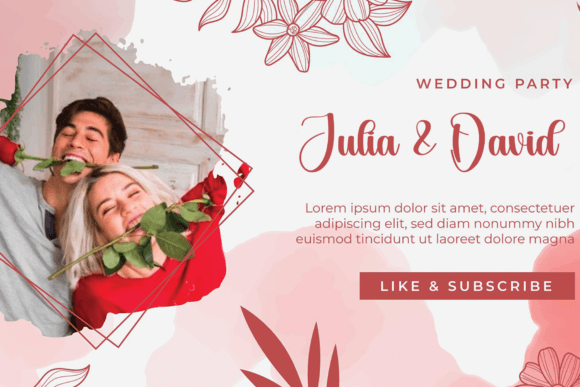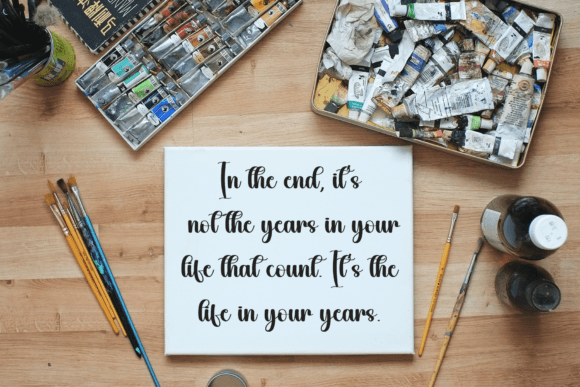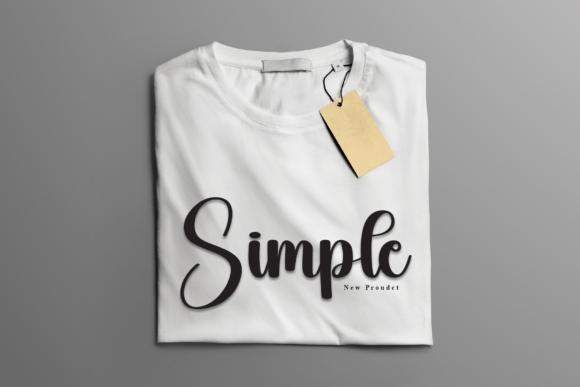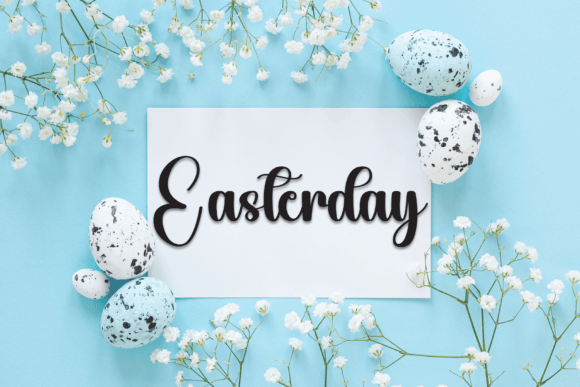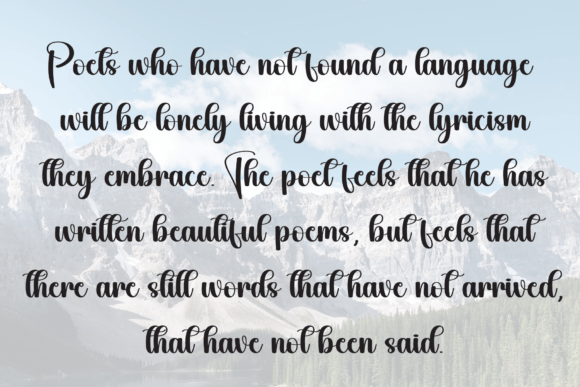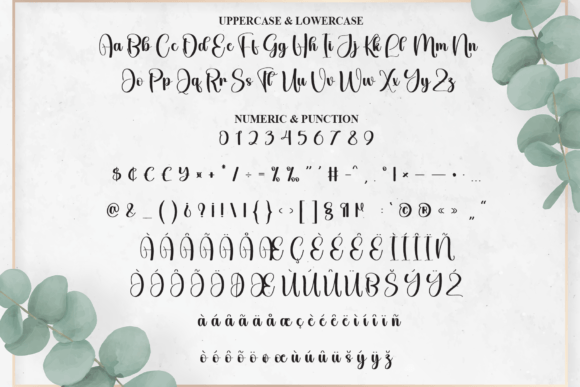
Introducing Handwritten: The Simple yet Elegant Font for Creative Designs
In the world of typography, a well-crafted font can make all the difference in elevating a design from ordinary to extraordinary. For designers and crafters looking to add a touch of sophistication and warmth to their projects, look no further than Handwritten, a beautiful and elegant handmade font. With its smooth curves and subtle flourishes, Handwritten is the perfect choice for creative designs that require a modern yet personal feel.
The Characteristics of Handwritten Font
Handwritten is a simple and elegant font that boasts a range of characteristics that make it ideal for a variety of design applications. Some of its key features include:
- Smooth Curves: Handwritten’s smooth curves give it a fluid and natural look that’s perfect for designs that require a touch of elegance.
- Subtle Flourishes: The font’s subtle flourishes add a touch of sophistication and whimsy, making it perfect for designs that require a bit of personality.
- Modern yet Personal: Handwritten’s unique blend of modern and personal elements makes it perfect for designs that require a fresh and approachable feel.
Uses for Handwritten Font
Handwritten is a versatile font that can be used in a wide range of design applications, including:
- Invitations: Whether you’re designing wedding invitations, birthday party invites, or other special occasion cards, Handwritten is the perfect choice.
- Logos and Branding: Handwritten’s unique and elegant design makes it perfect for logos and branding materials that require a touch of sophistication.
- Stationery: From letterheads to greeting cards, Handwritten is the perfect choice for any stationery design that requires a personal and elegant touch.
Why Choose Handwritten Font?
With so many fonts to choose from, why should you choose Handwritten for your next design project? Here are just a few reasons:
- Elegance: Handwritten’s smooth curves and subtle flourishes give it an elegant and sophisticated look that’s hard to find in other fonts.
- Versatility: Handwritten can be used in a wide range of design applications, from invitations to logos and branding materials.
- Uniqueness: Handwritten’s unique blend of modern and personal elements makes it stand out from other fonts and adds a touch of personality to any design.
Tips for Using Handwritten Font
To get the most out of Handwritten, here are a few tips to keep in mind:
- Use it sparingly: While Handwritten is a beautiful font, it can be overwhelming if used too much. Use it sparingly to add a touch of elegance and sophistication to your design.
- Pair it with other fonts: Handwritten pairs well with a range of other fonts, from simple sans-serifs to more elaborate script fonts.
- Experiment with different sizes: Handwritten looks great in a range of sizes, from large headings to smaller body text.
In conclusion, Handwritten is a beautiful and elegant handmade font that’s perfect for designers and crafters looking to add a touch of sophistication and warmth to their projects. With its smooth curves and subtle flourishes, Handwritten is the perfect choice for creative designs that require a modern yet personal feel. Whether you’re designing invitations, logos, branding materials, or stationery, Handwritten is the perfect choice.